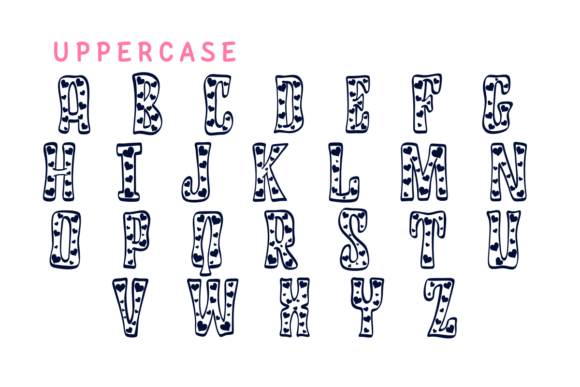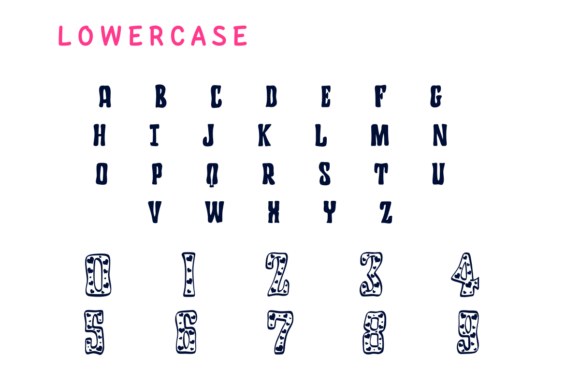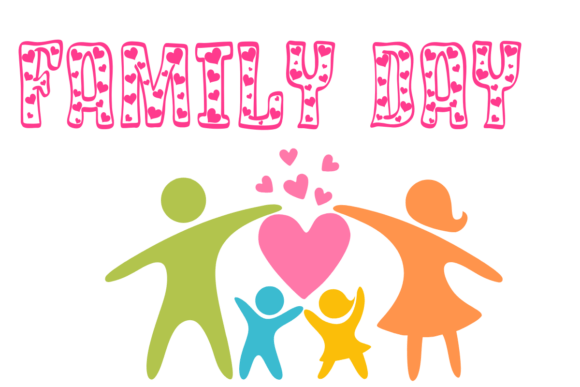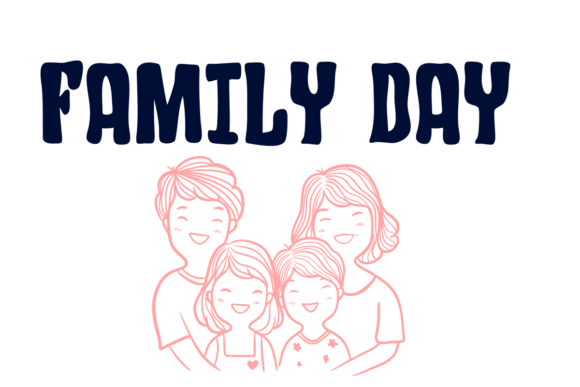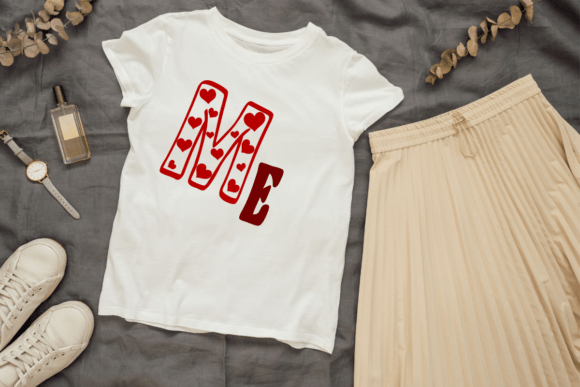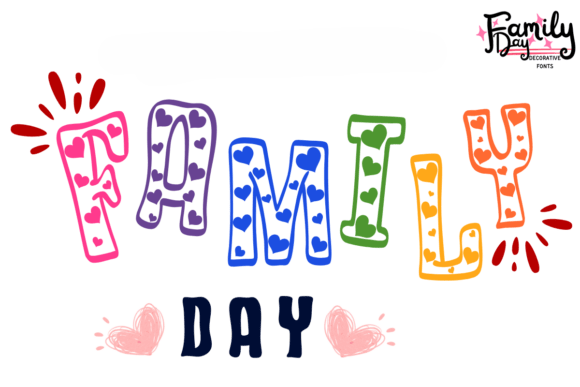
Introducing Family Day Font: A Joyful and Colorful Decorative Font for Your Designs
Are you looking for a font that radiates warmth and togetherness? Do you want to add a playful touch to your designs for children’s events, family parties, or school activities? Look no further than the Family Day Font! This delightful decorative font is packed with love and features playful uppercase letters filled with heart-shaped elements.
What Makes Family Day Font So Special?
Family Day Font is a unique and eye-catching font that is perfect for designers and crafters who want to create fun and affectionate designs. The font’s playful uppercase letters are filled with heart-shaped elements, giving it a warm and cozy feel. The font’s design is perfect for a variety of projects, including:
- Children’s event posters
- Family party invitations
- School activities
- Any design where fun and affection take center stage
Key Features of Family Day Font
Here are some of the key features that make Family Day Font a great choice for your designs:
- Playful uppercase letters: The font features playful uppercase letters that are perfect for creating fun and eye-catching designs.
- Heart-shaped elements: The font is filled with heart-shaped elements, giving it a warm and affectionate feel.
- Colorful and joyful: The font is designed to be colorful and joyful, making it perfect for designs where fun and happiness are the focus.
- Perfect for kids’ designs: The font’s playful and fun design makes it perfect for designs for kids, including children’s event posters and school activities.
How to Use Family Day Font in Your Designs
Using Family Day Font in your designs is easy! Here are a few tips to get you started:
- Pair it with other fonts: Family Day Font pairs well with other fun and playful fonts. Try pairing it with a sans-serif font for a fun and modern look.
- Use it for headings: The font’s playful design makes it perfect for headings and titles. Use it to add a fun and eye-catching touch to your designs.
- Add some color: The font’s colorful design makes it perfect for designs with bright and bold colors. Try adding some fun and bright colors to your design to make it pop.
Why Designers and Crafters Love Family Day Font
Designers and crafters love Family Day Font for a variety of reasons. Here are a few:
- It’s fun and playful: The font’s playful design makes it perfect for designers and crafters who want to add a fun and eye-catching touch to their designs.
- It’s versatile: The font can be used for a variety of projects, from children’s event posters to family party invitations.
Family Day Font is a joyful and colorful decorative font that is perfect for designers and crafters who want to add a playful touch to their designs. With its playful uppercase letters filled with heart-shaped elements, this font radiates warmth and togetherness. Whether you’re creating children’s event posters, family party invitations, or school activities, Family Day Font is the perfect choice. So why wait? Download Family Day Font today and start creating fun and affectionate designs!